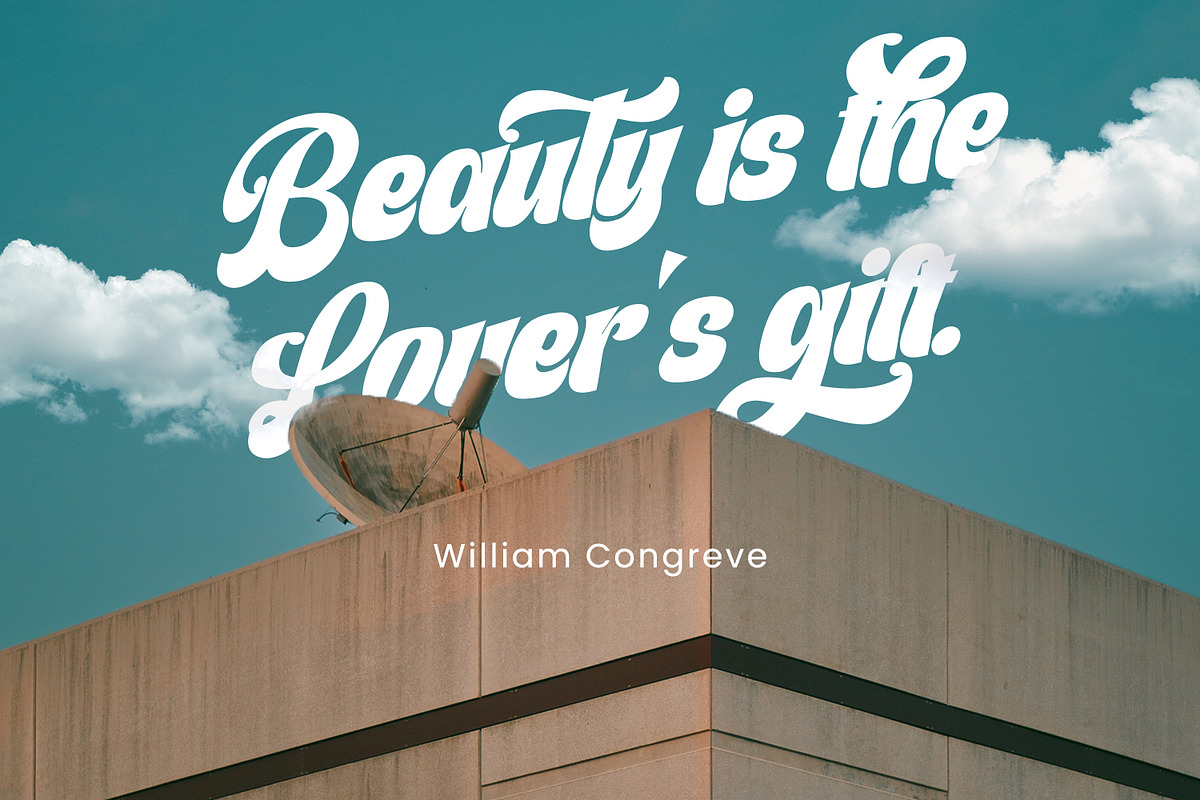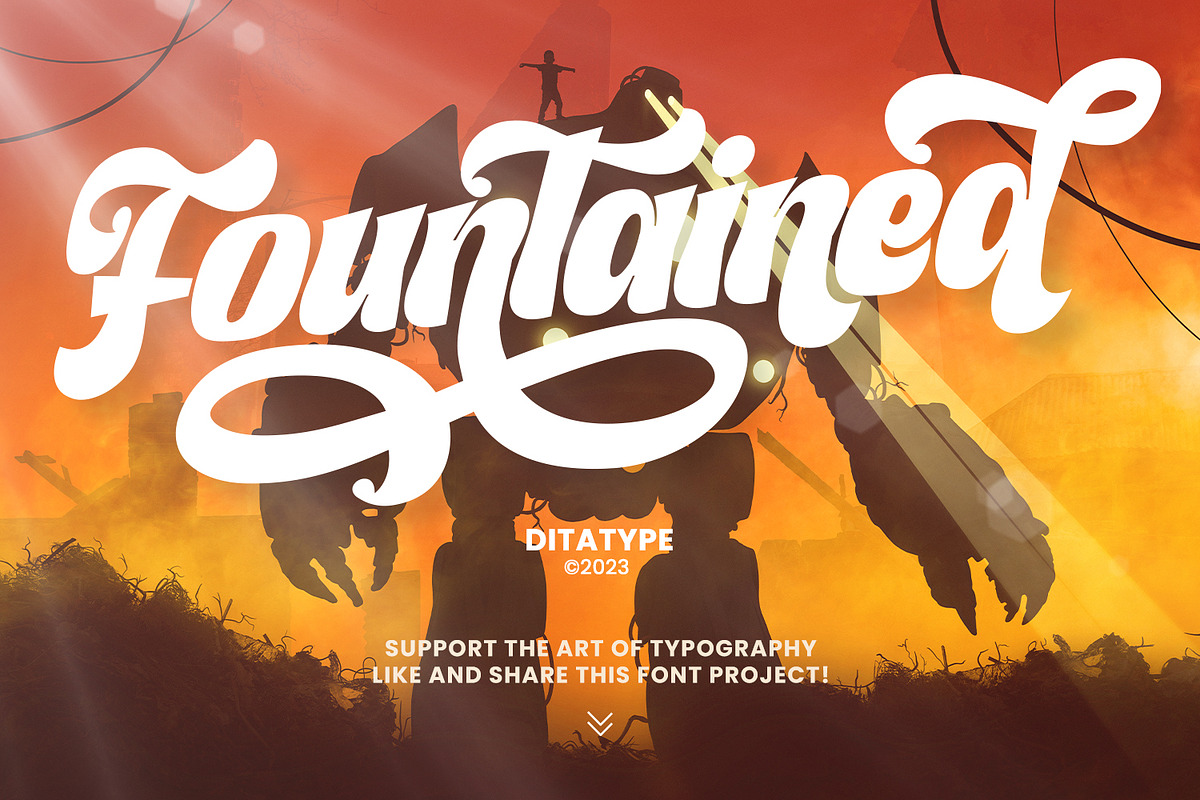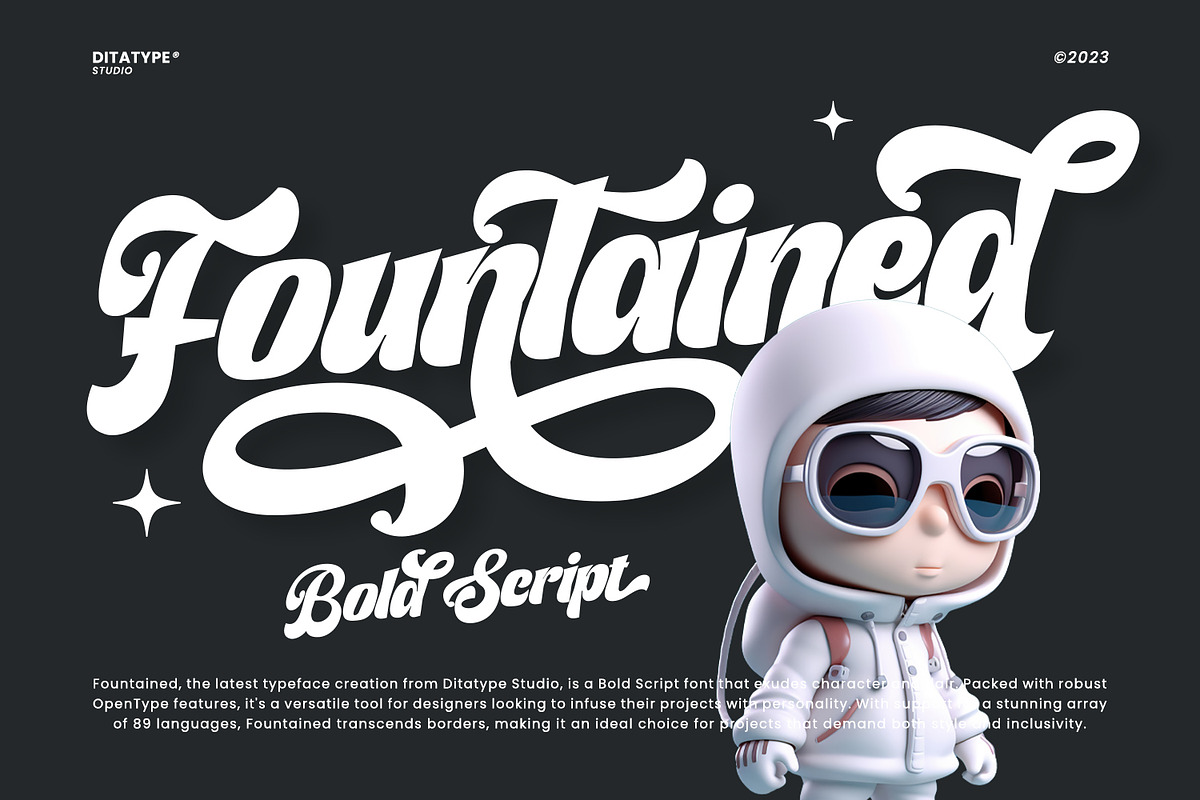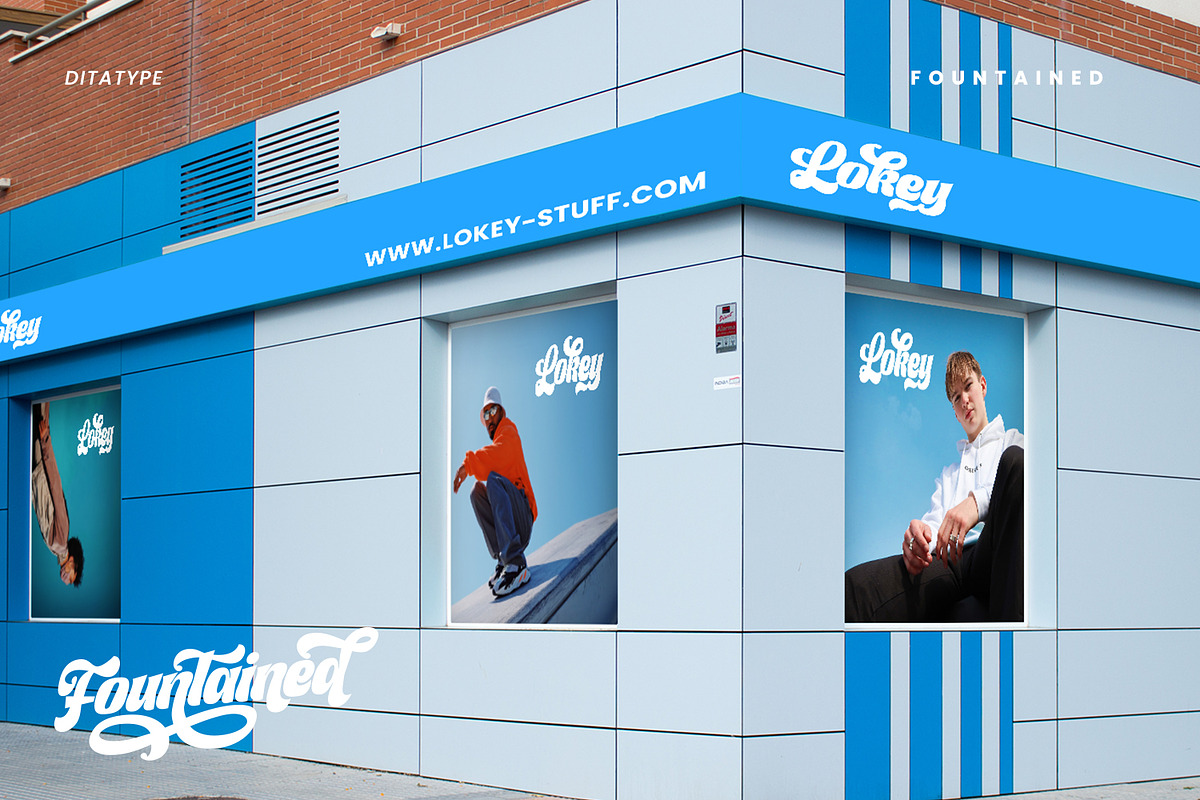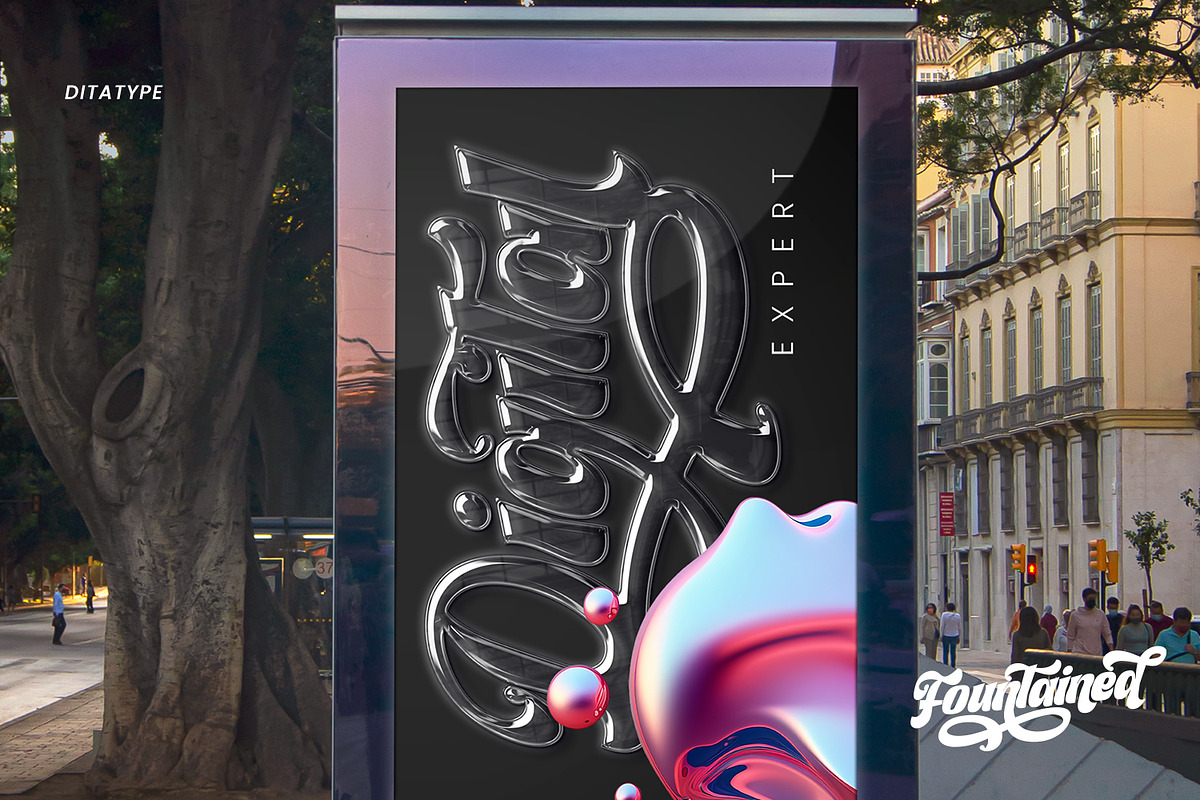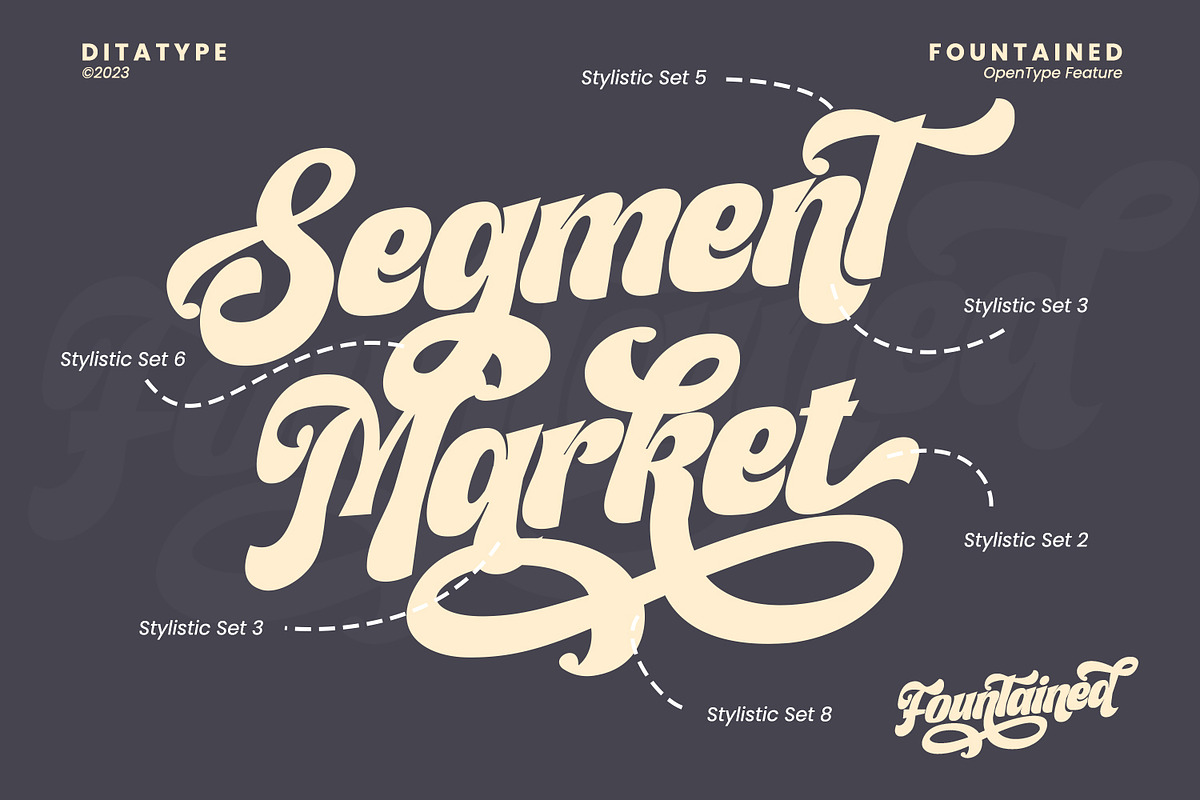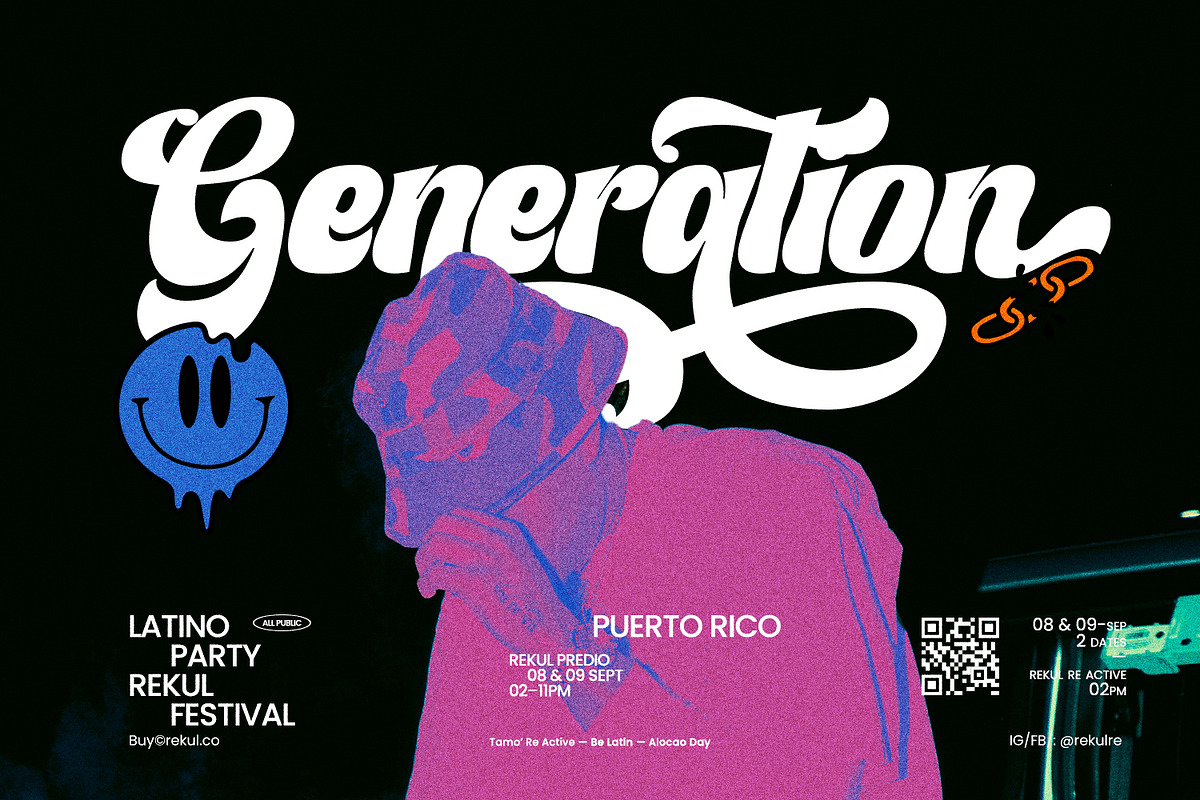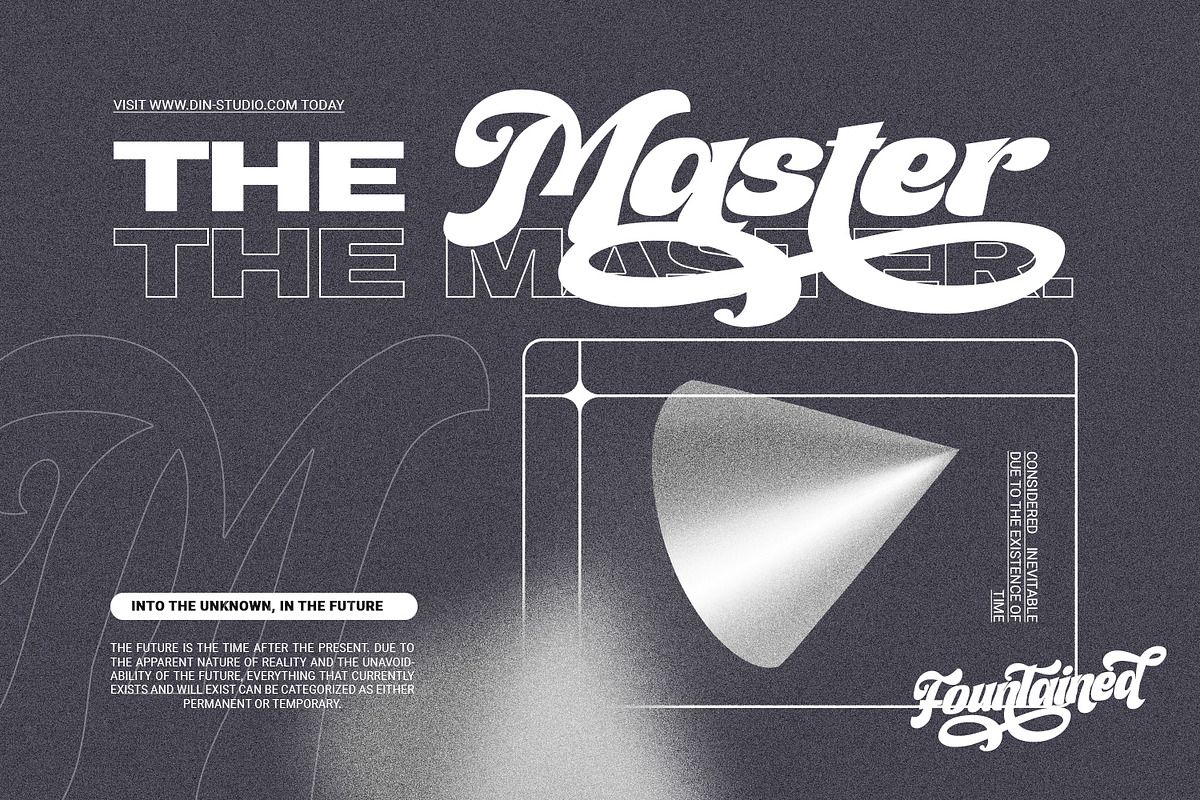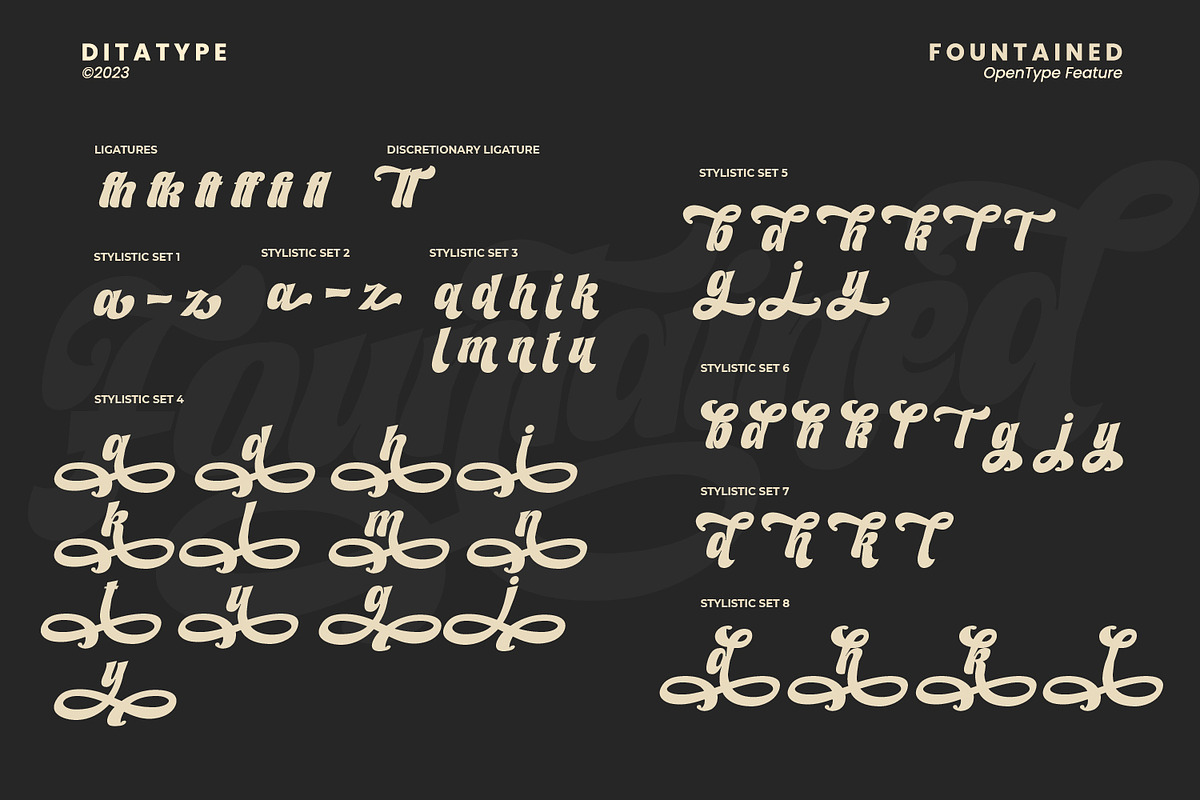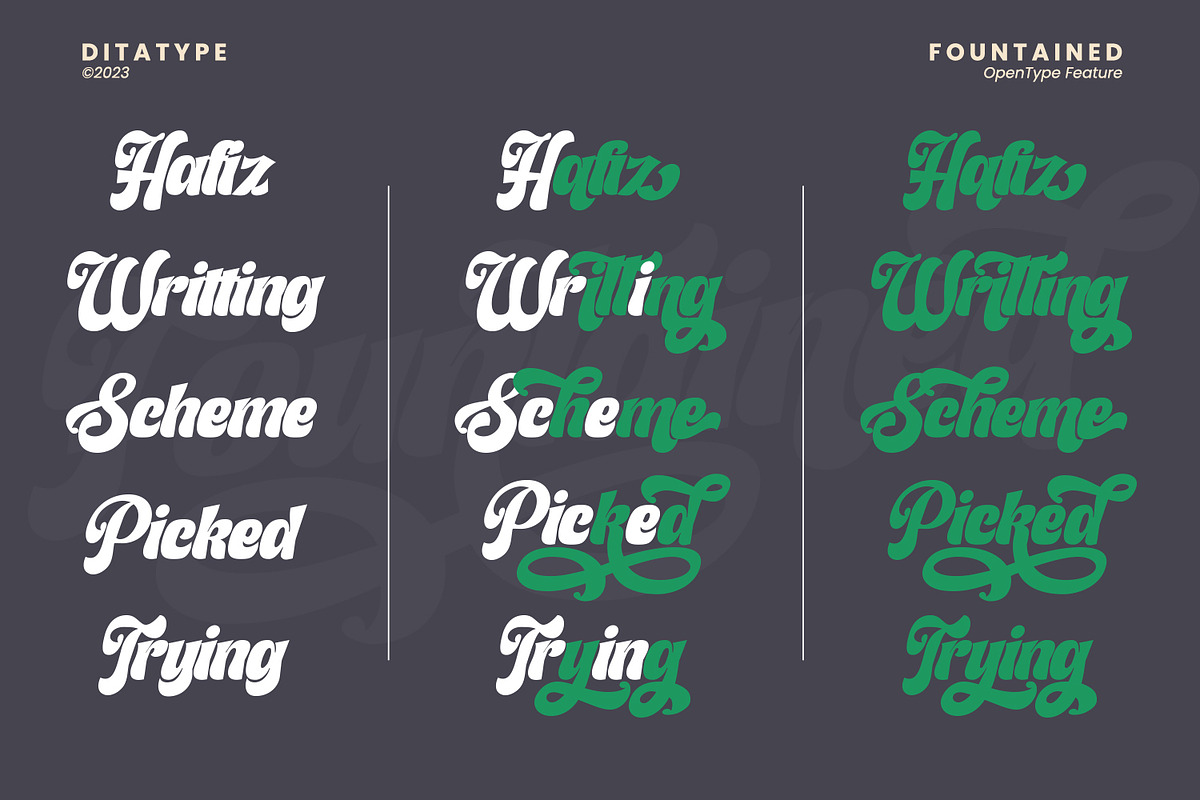
Fountained
Fountained is a luxurious script font that beautifully marries sophistication with a touch of playful elegance. The characters in Fountained boast a generous thickness, making each stroke exude opulence and a sense of grandeur. The swinging ends, resembling graceful flourishes, bring a touch of movement and style to the font, ensuring that Fountained stands out as a distinctive script font. Enjoy the features here.
- Stylistic Sets
Fountained fits in headlines, logos, posters, flyers, branding materials, greeting cards, print media, editorial layouts, and many more designs. Find out more ways to use this font by taking a look at the font preview.